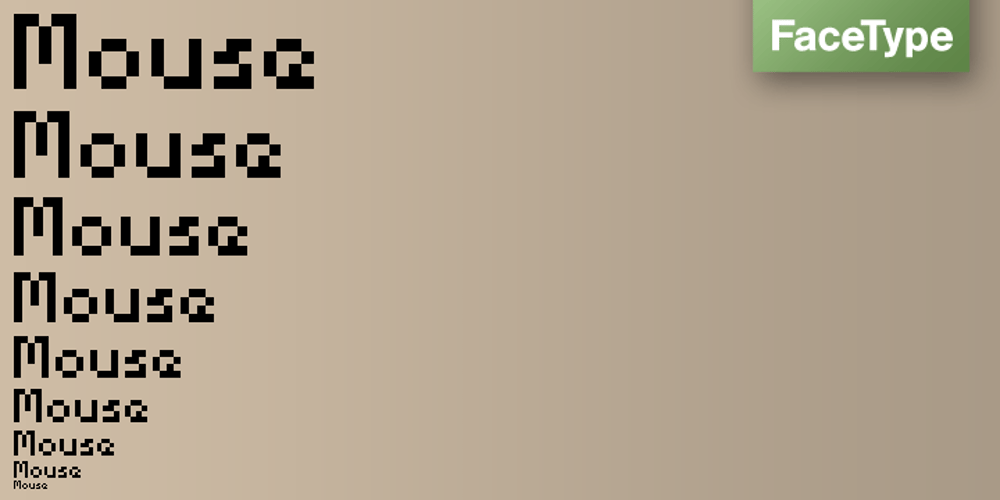
Mouse
Mouse font
Mouse Font Family was designed by Marcus Sterz and published by FaceType. Mouse contains 1 styles and family package options. Mouse is a fully accented pixel font for use at 8 pt size. Please take a look at Mousedings, where you can find numerous web symbols.